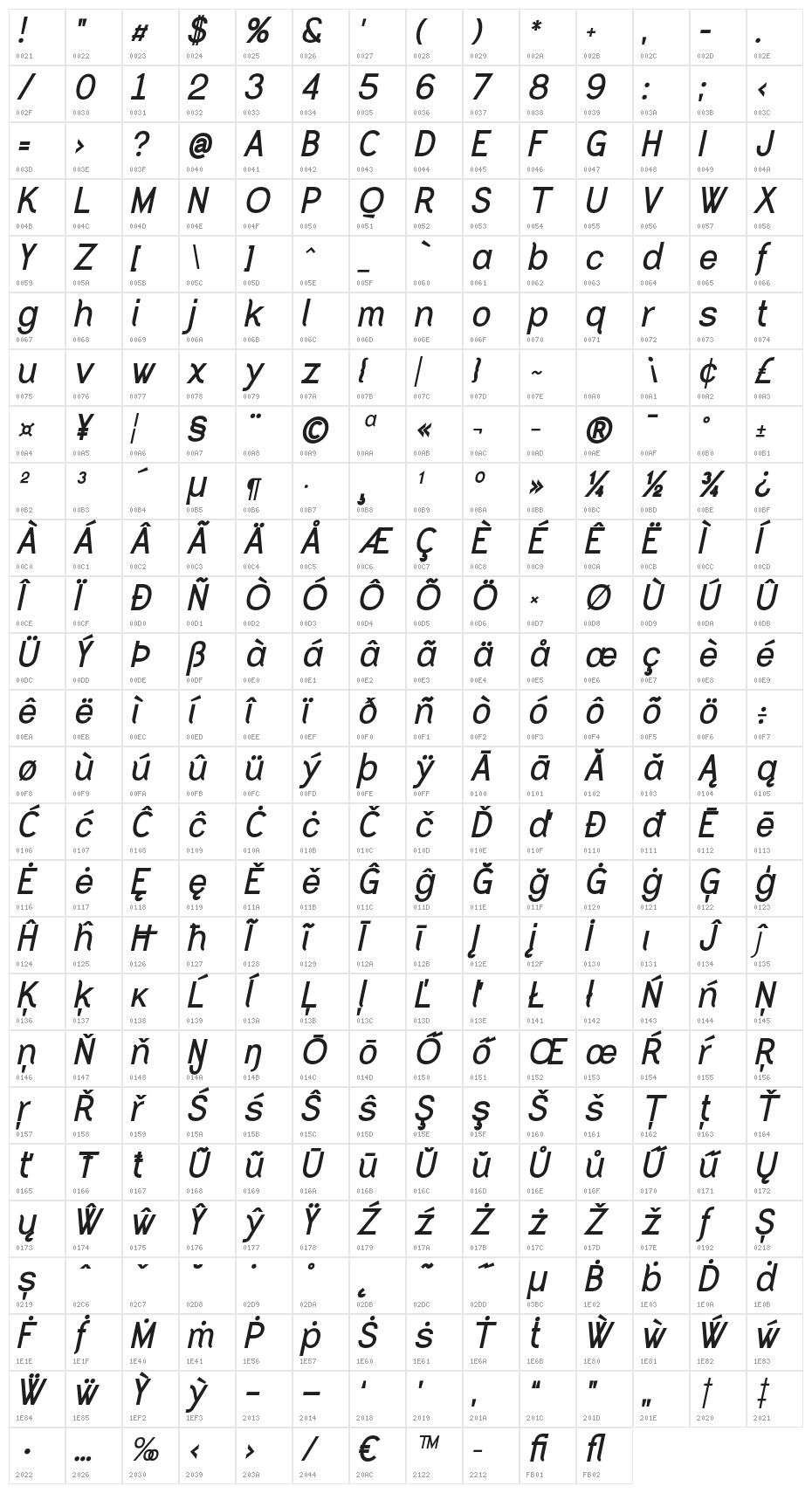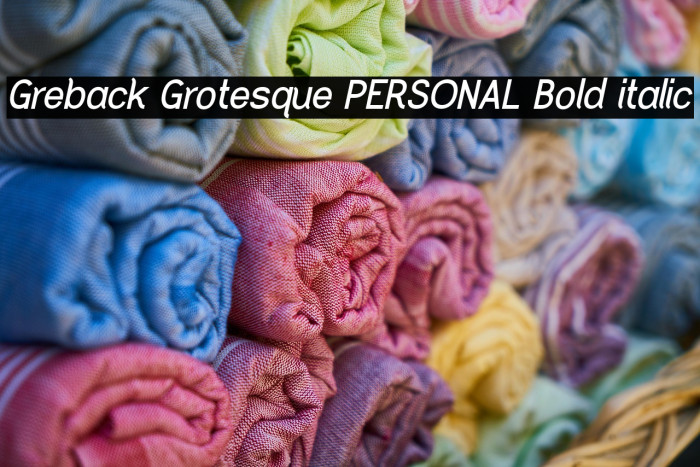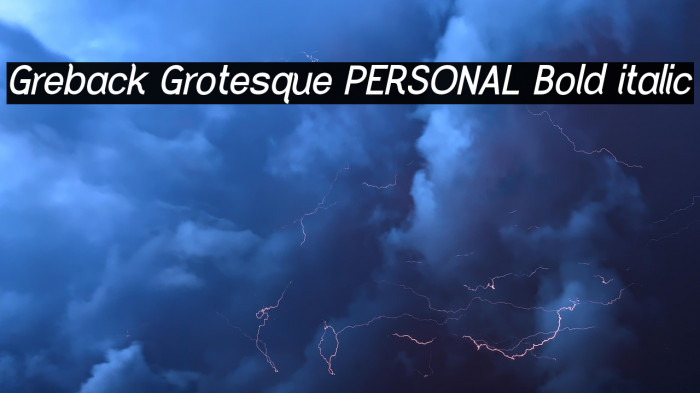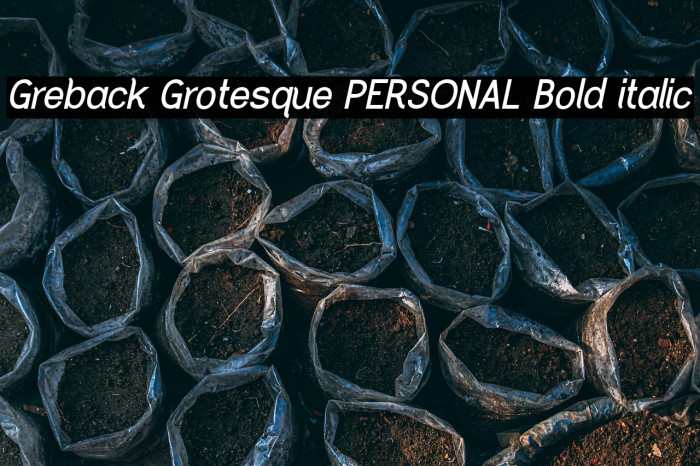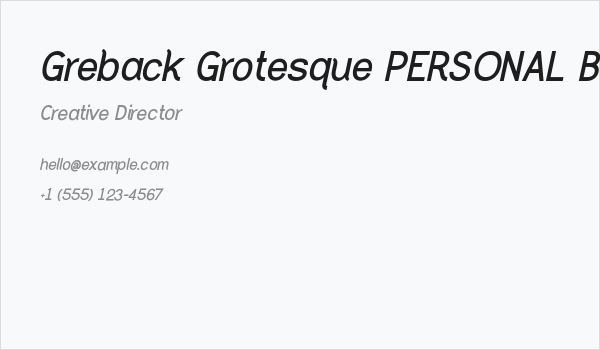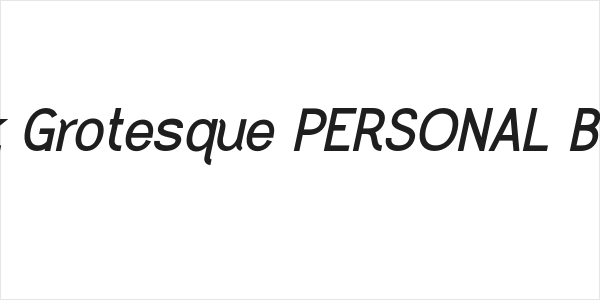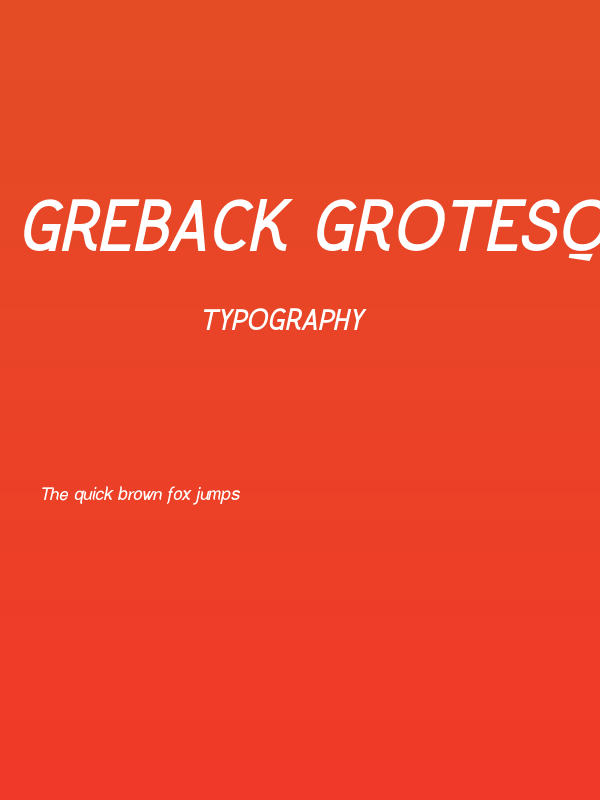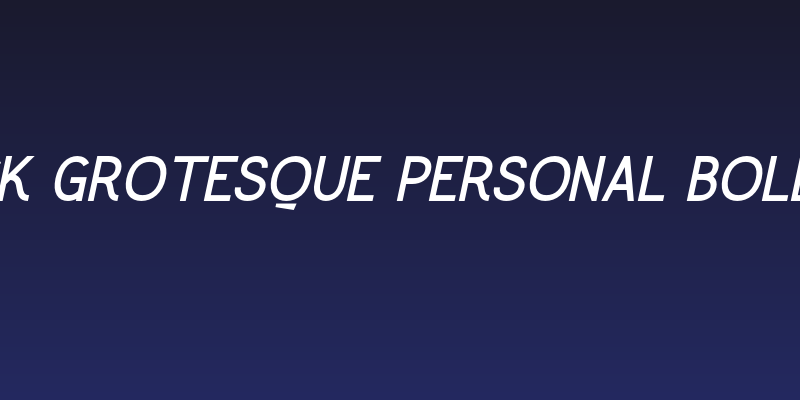
Greback Grotesque PERSONAL Bold italic Font
Greback Grotesque PERSONAL Bold italic Description
This font exhibits a bold and italicized style, characterized by its clean and modern appearance. The letters are slightly slanted, giving a dynamic and forward-moving impression. The strokes are consistent in thickness, providing a uniform look across all characters. The uppercase and lowercase letters maintain a harmonious balance, with rounded edges that soften the overall aesthetic. The numerals are clear and easily distinguishable, making them suitable for various applications. Special characters are well-defined, ensuring versatility in usage.
| Use Case | Headlines, Logos, Advertising |
| Proposed Projects | Ideal for branding, advertising, and editorial design projects where a modern and bold statement is needed. |